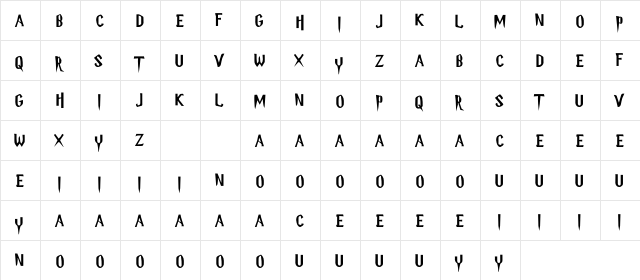
Hellowan Regular
Design Context for Hellowan Typeface
Hellowan is a composed and adaptable typeface that performs quietly and consistently across a wide range of design contexts.